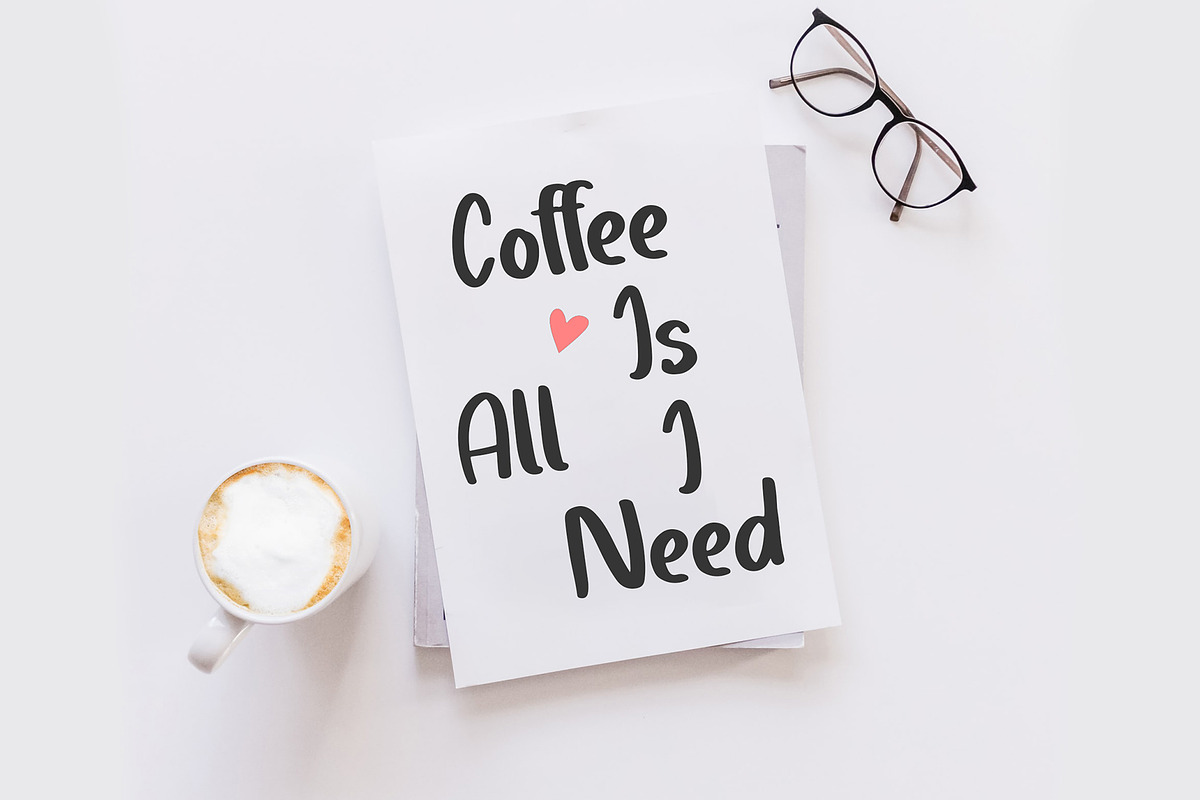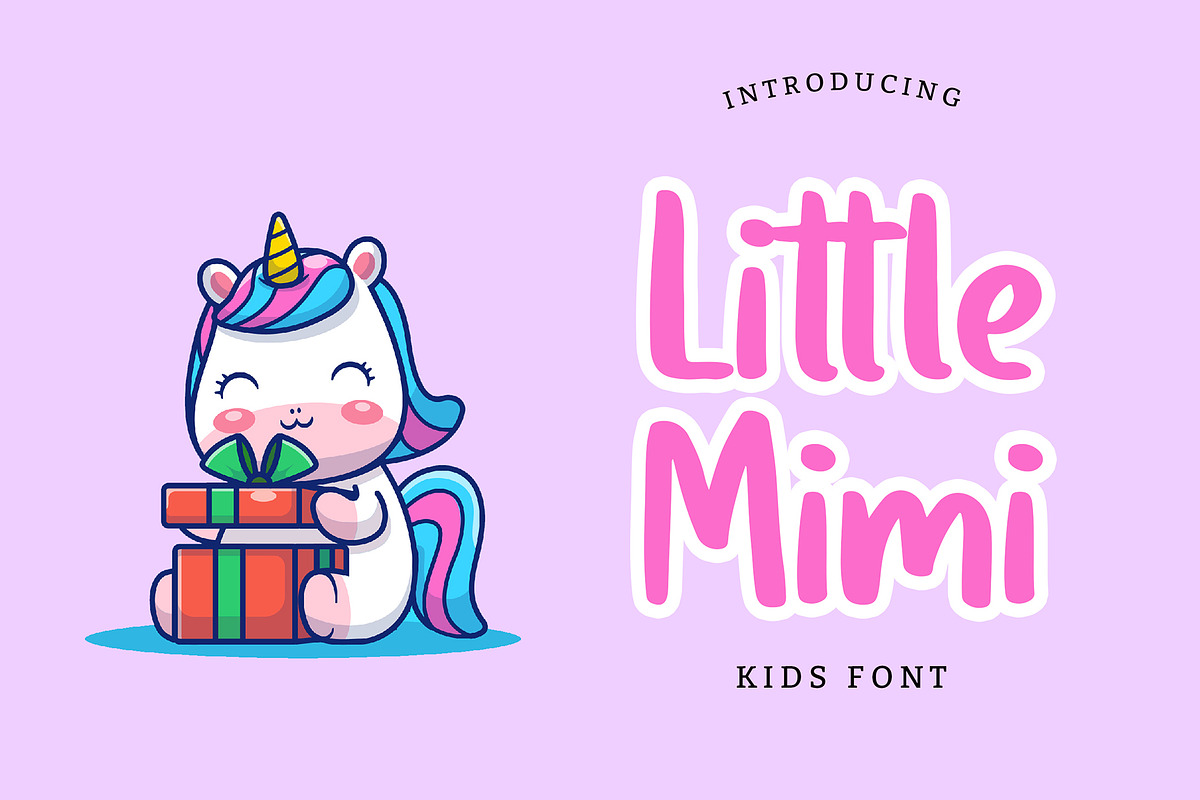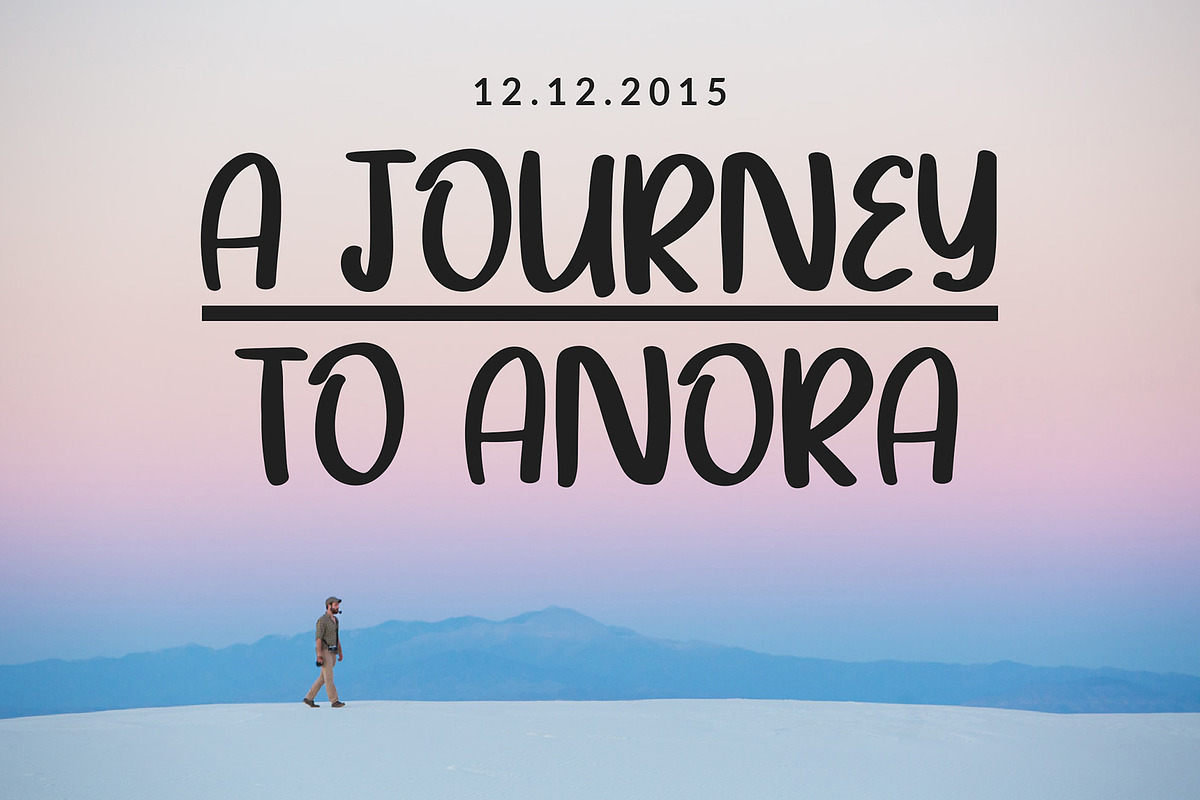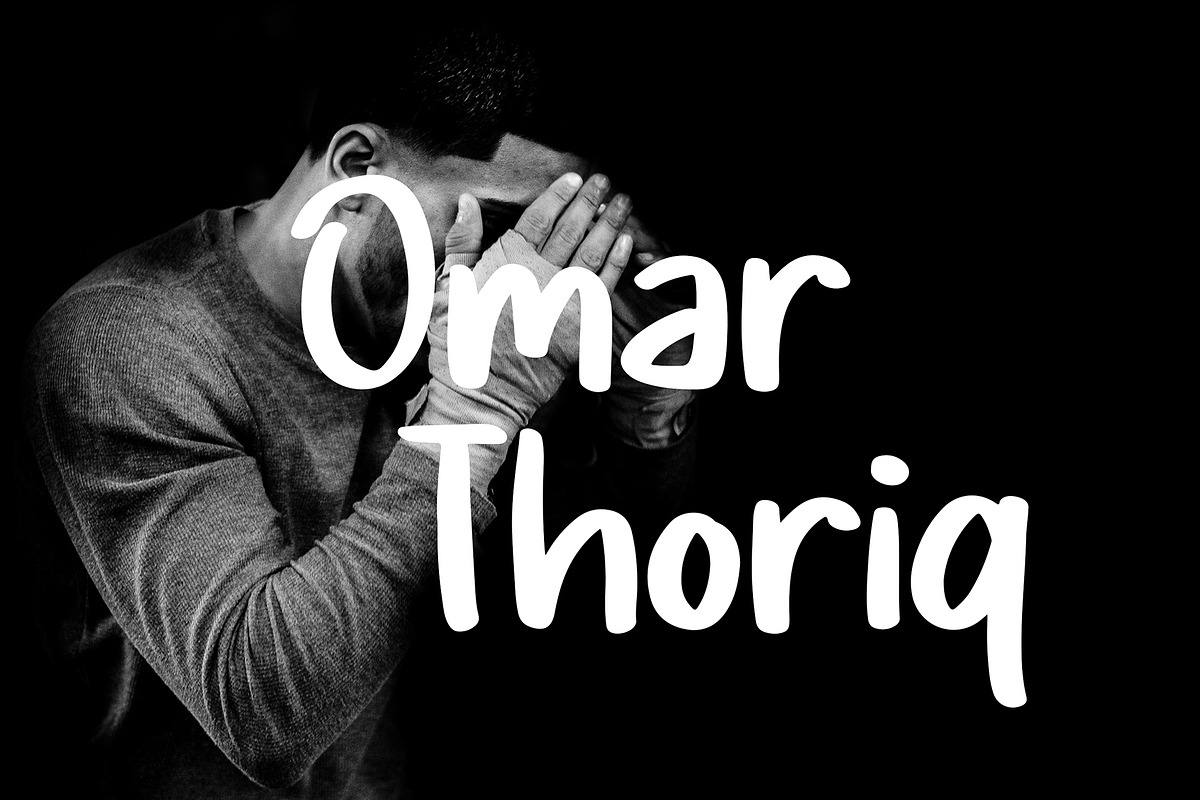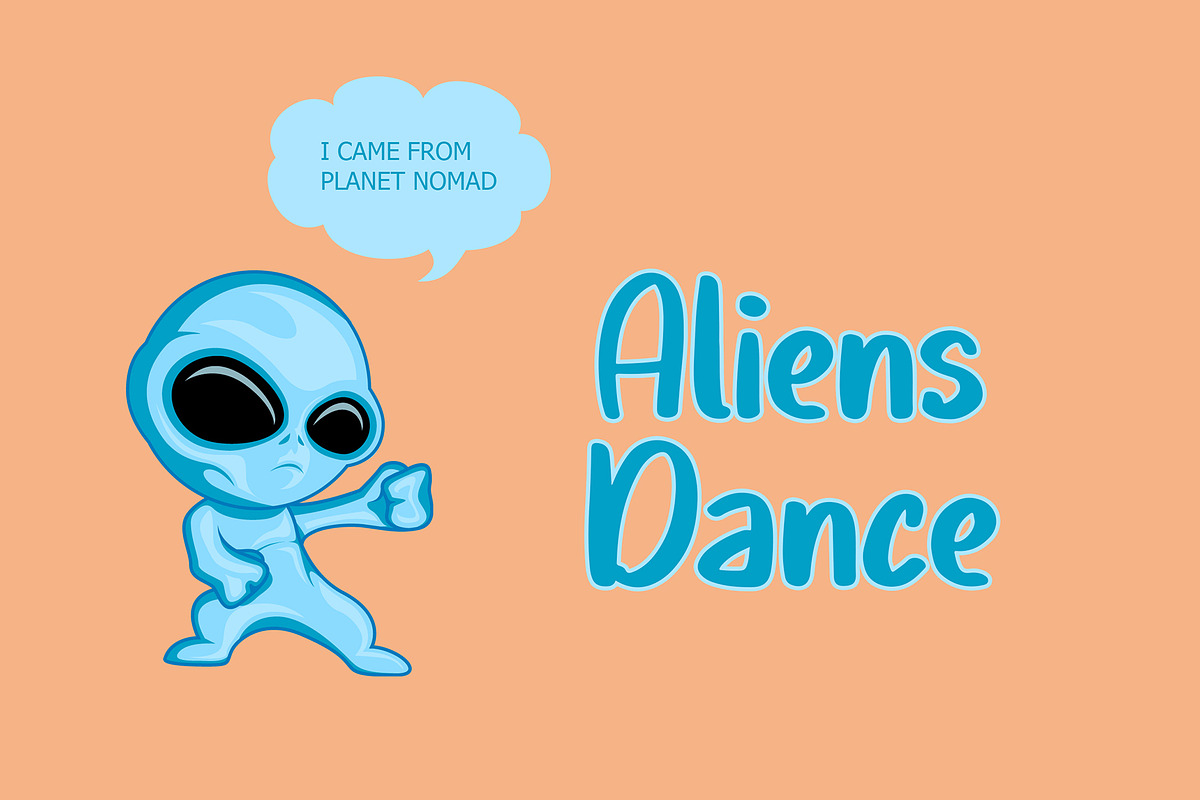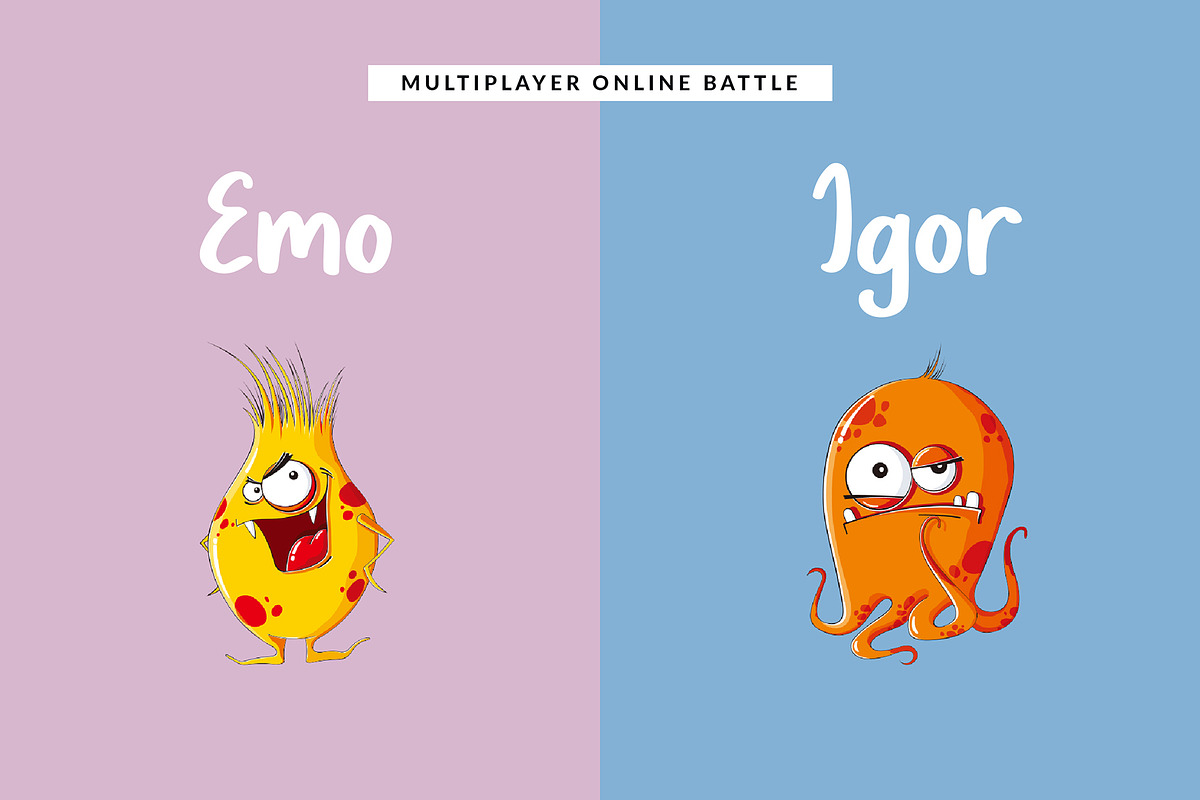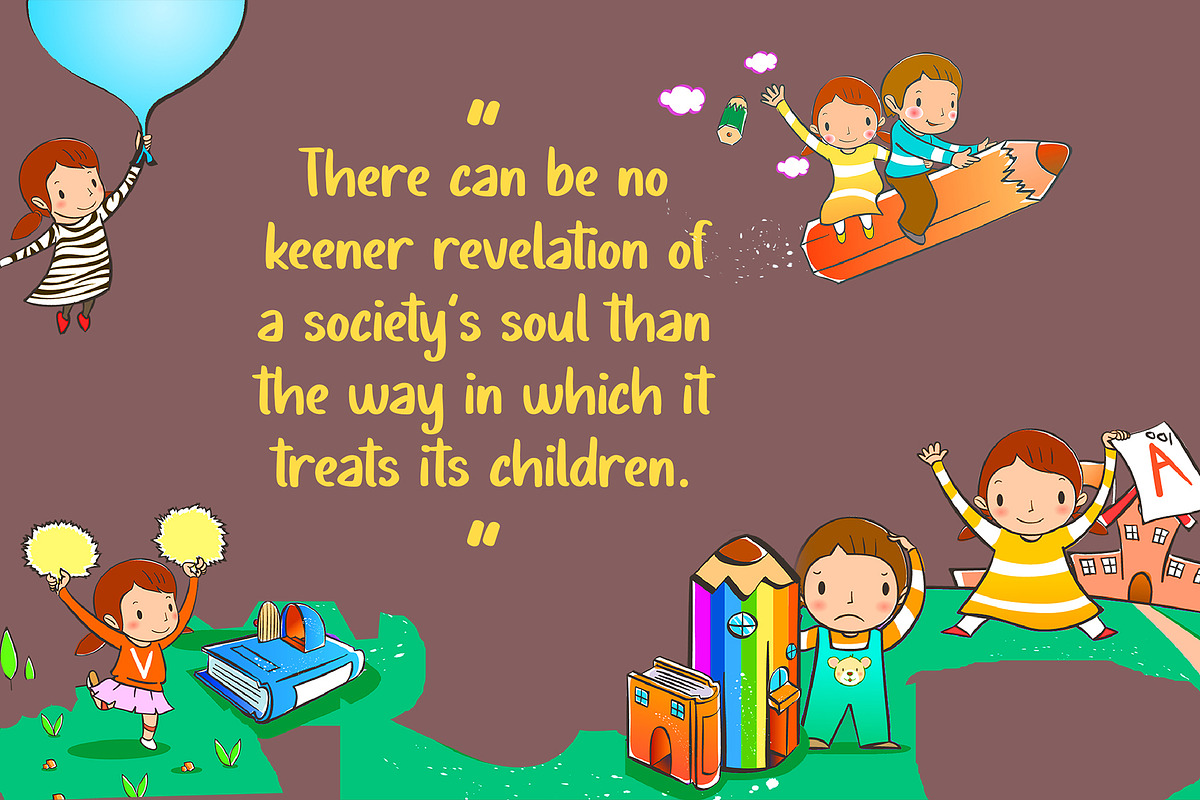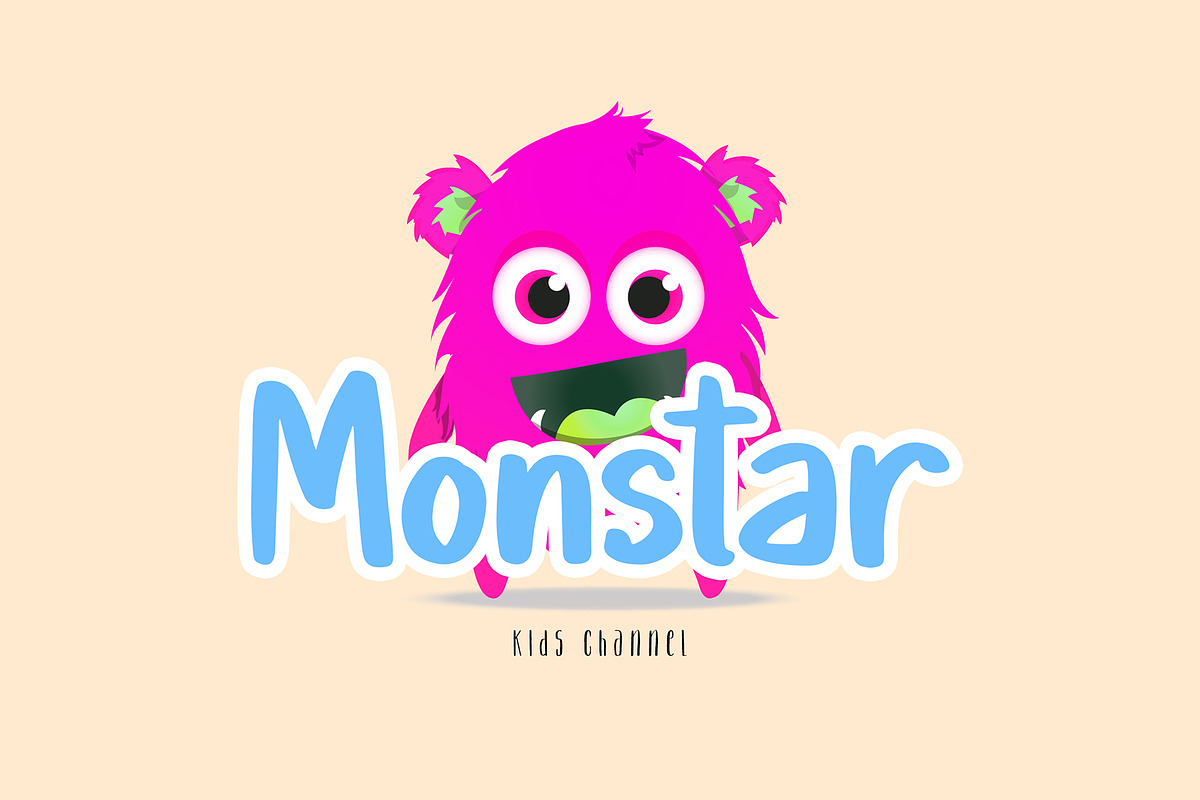
Little Mimi Kids Font
Little Mimi Kids Font, can make your text appear playful, excited, and modern!
Little Mimi Kids Font is perfect for cute and playful branding projects, logo, petshop and animal-related projects, social media posts, advertisements, product packaging, T-shirt design, product designs, label, photography, watermark, invitation, stationery, and any projects.
Little Mimi Kids Font by Giant Design fits naturally into Branding, posters, packaging, typography.